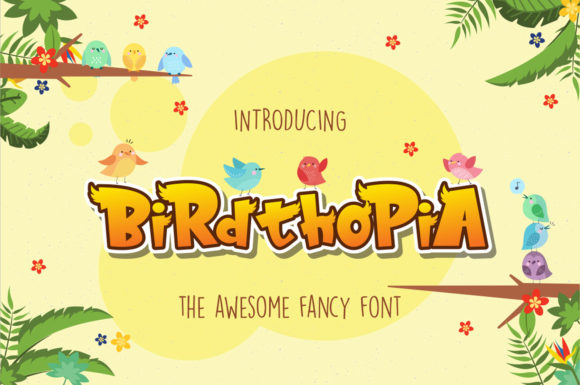
In a realm where boundless creativity dances with digital expressions, allow us to unveil a font that paints a picture of unparalleled charm and delight: Birdthopia Font. This enchanting display font, crafted with meticulous artistry by fachranheit, is a testament to the power of imagination and its ability to transform the mundane into the extraordinary.
Birdthopia Font is not merely a collection of letters; it's a gateway to a world of vibrant colors and playful shapes. Each character in this font carries a unique personality, exuding an infectious charm that's guaranteed to capture hearts and imaginations. Its whimsical curves and delightful details invite you to embark on a journey of artistic exploration, where every design becomes a canvas for storytelling and self-expression.
With Birdthopia Font, the possibilities are as limitless as your imagination. Whether you're designing t-shirts, crafting heartfelt quotes, creating captivating posters, or bringing logos to life, this font will elevate your designs to new heights of visual appeal. Its versatility knows no bounds, making it the perfect companion for a multitude of projects, from magazine covers to large-scale artwork.
Embrace the magic of Birdthopia Font and let your creativity soar to unprecedented heights. Its playful charm will add a touch of whimsy to your designs, while its unwavering legibility ensures that your message is communicated with clarity and impact. Experience the joy of creating designs that resonate with audiences, leaving an indelible mark on their hearts and minds.
With Birdthopia Font, you'll unlock a treasure chest of creative possibilities, transforming your designs into captivating masterpieces that spark joy and inspire imaginations. Dive into the world of Birdthopia Font today and let your creativity take flight!